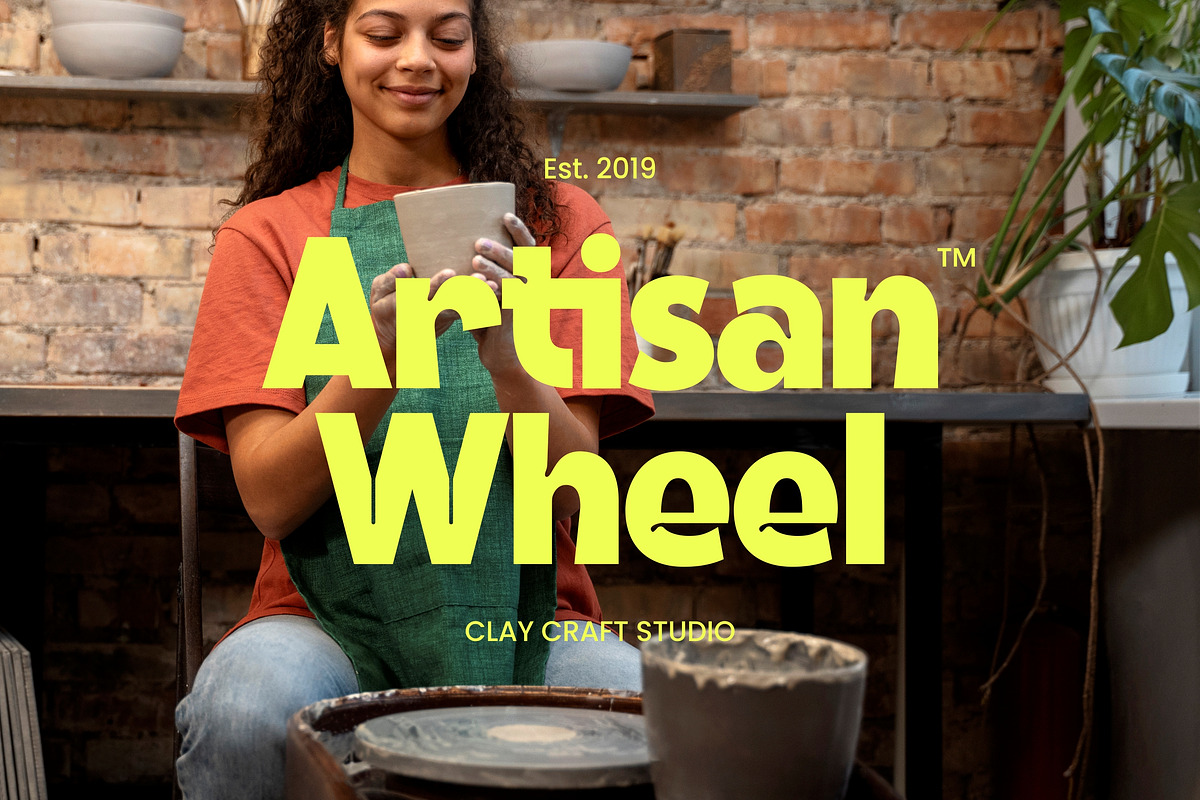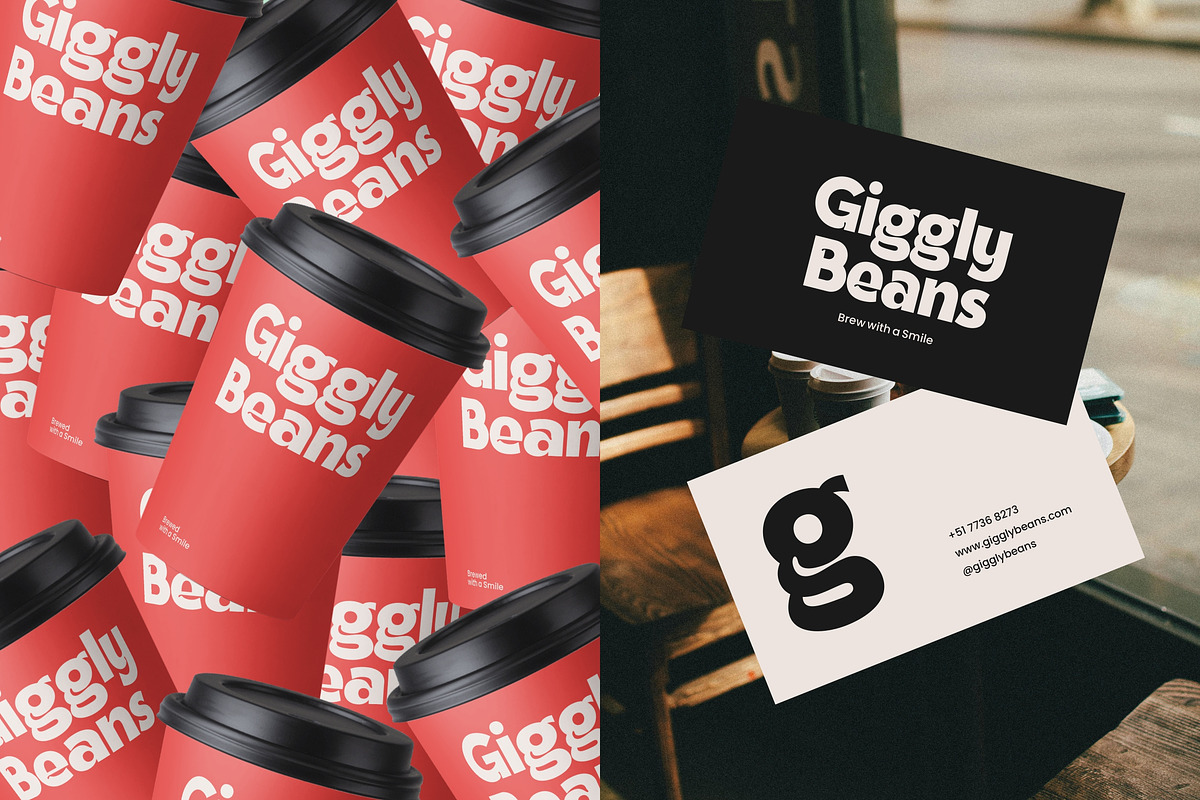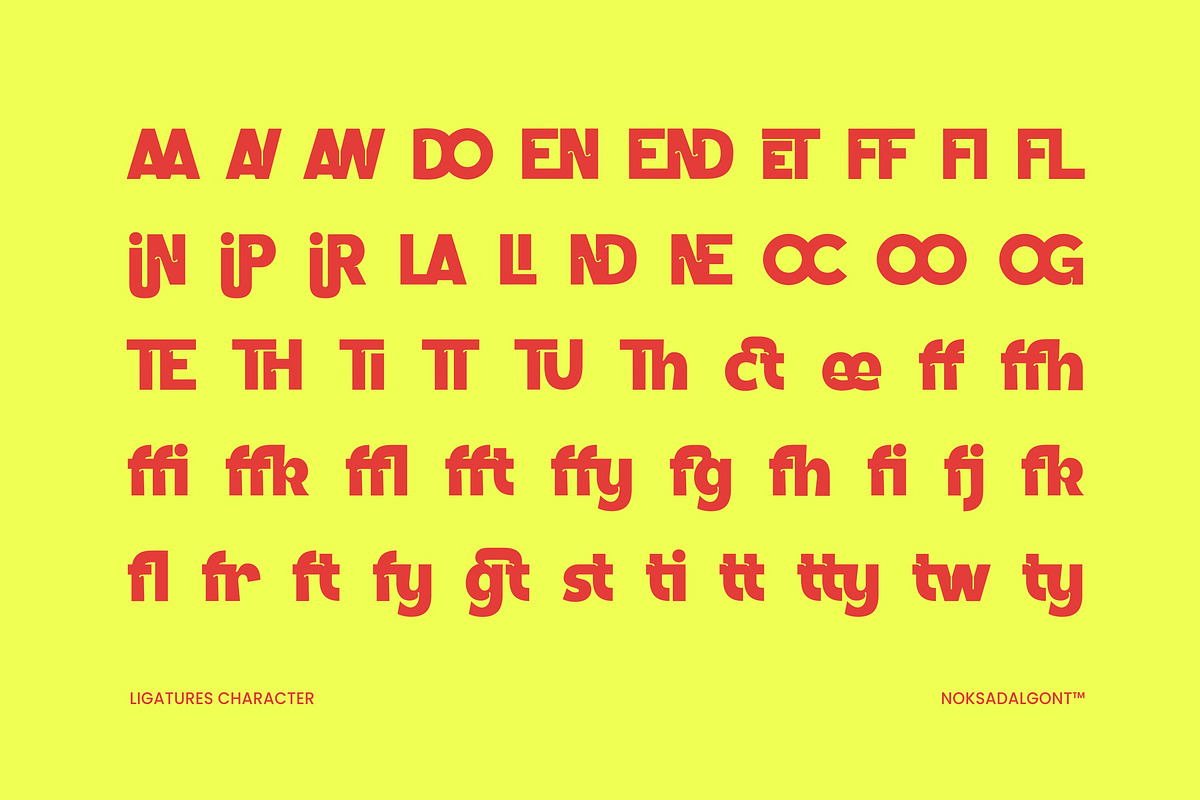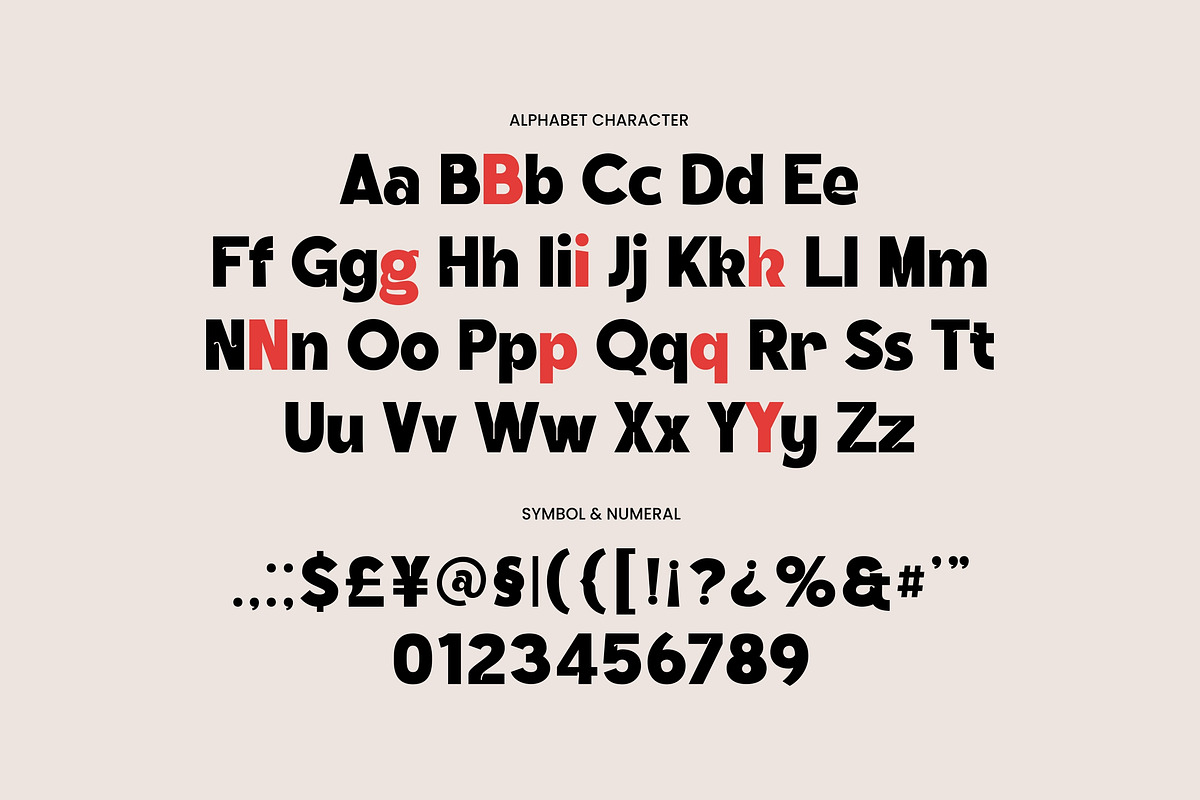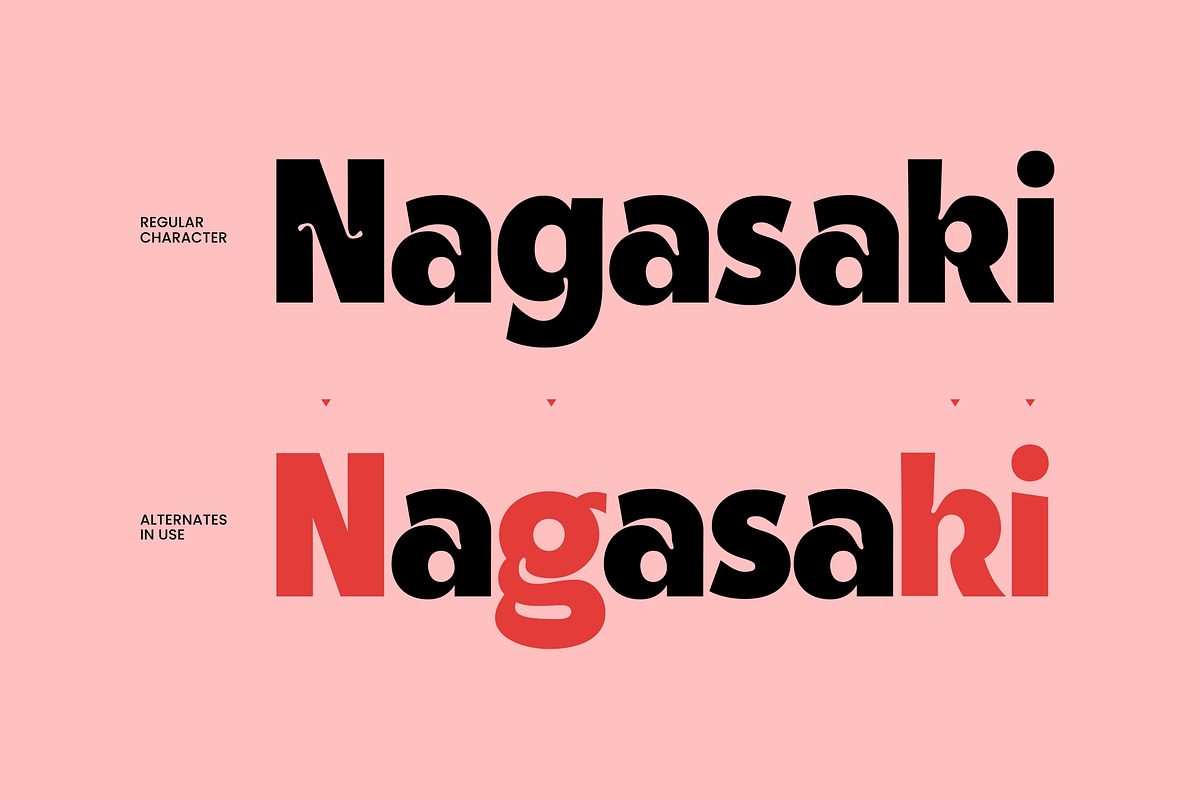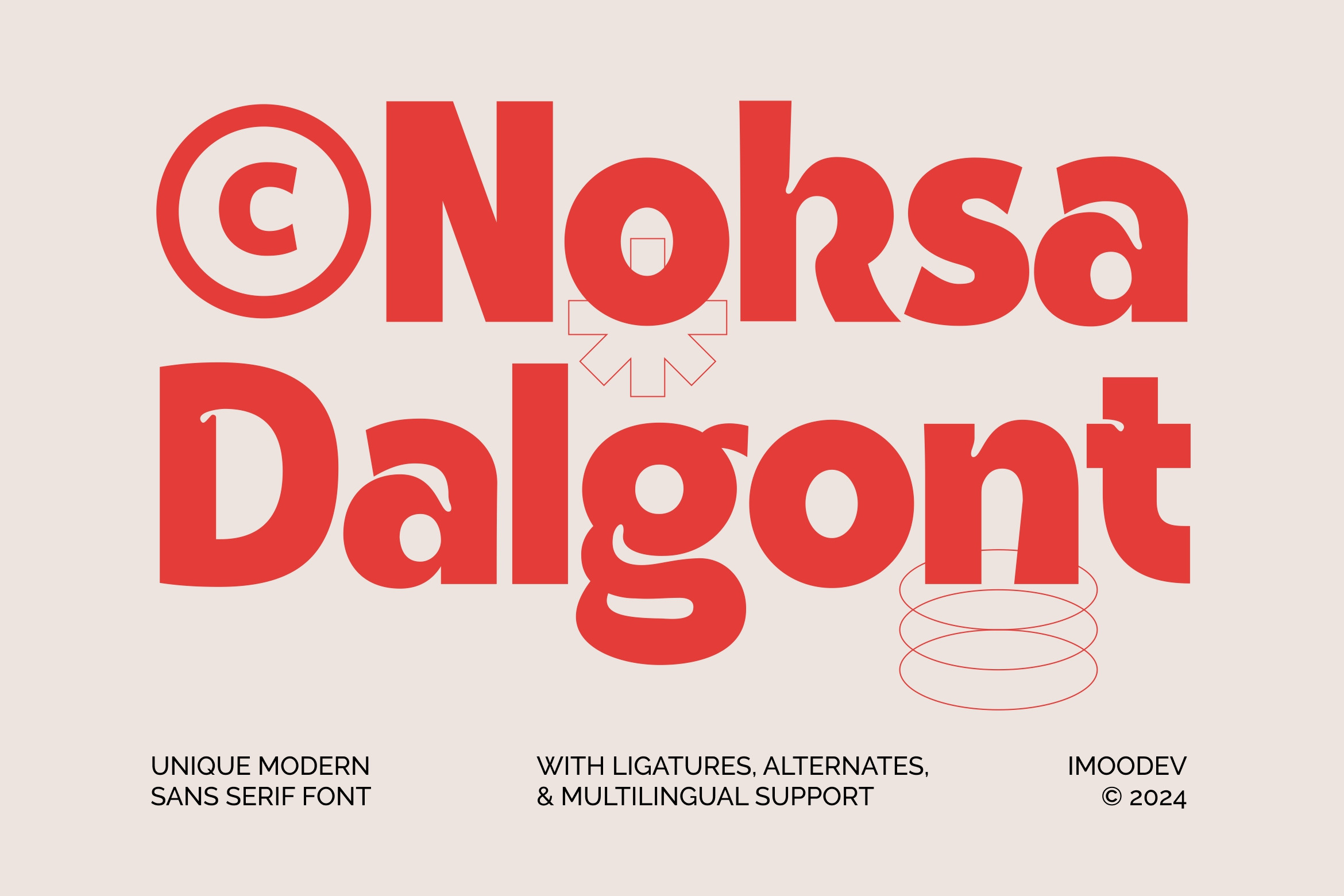
Noksa Dalgont - Modern Sans Font
Meets Noksa Dalgont, a new carefully crafted modern sans serif typefaces and has curves in all the right places. This font generates fun, more trendy and more vibrant. It’s versatile, fun, cute and beauty feel that you get in Noksa Dalgont typefaces.
It's perfectly for children books, funny greeting cards, food package design, branding, advertising, packaging, headlines, mockup, magazines, art deco, logotypes and much other, where used cartoon or simple abstract graphic. But obviously, its usage can be more widely.